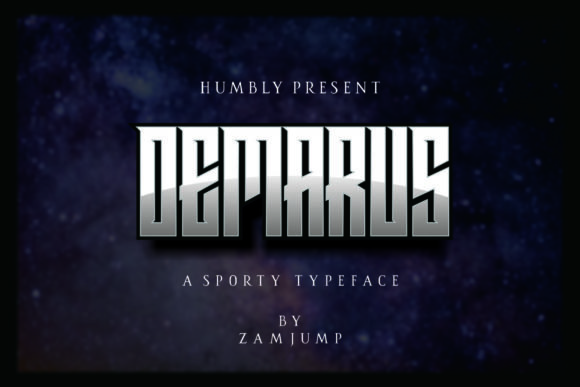
Unleash Your Creativity with Demarus Font
Have you ever been stuck in the middle of a project, staring at a blank page, trying to find the perfect font to bring your idea to life? That’s exactly what happened to us when we stumbled upon Demarus Font – an exquisite display font designed specifically for e-sports related projects.
Demarus Font is more than just a font, it’s a key to unlocking your creativity. With its sleek and modern design, it’s perfect for logotype, quotes, magazine layouts, and even t-shirt designs. Whether you’re a seasoned designer or just starting out, Demarus Font is an invaluable addition to your toolkit.
- Font Family: Demarus is a sans-serif font family designed for modern and clean typography.
- Character Count: Demarus Font contains over 800 glyphs, including Latin, Cyrillic, and Greek alphabets, as well as various punctuation marks and symbols.
- Unique Characteristics: Demarus Font features a unique blend of geometric and organic shapes, resulting in a modern and sophisticated aesthetic.
Demarus Font Review
Overall, I think Demarus Font is a solid choice for designers looking for a modern and sleek display font. ✨ It’s perfect for titles, headings, and any other element where you want to add a touch of sophistication.
- ✨ Highly legible even at small font sizes.
- ✨ Suitable for a wide range of design projects, from digital to print.
- ✨ Well-suited for use with bold, modern color schemes.
- ✨ Available in a range of weights and styles to suit different design needs.
- ⚠️ May not be the best choice for body text or long blocks of text due to its condensed nature.
- ⚠️ Some users may find the font a bit too stylized or flashy for certain design projects.
- ⚠️ Limited language support, which may be a concern for designers working on multilingual projects.
I think Demarus Font is a great addition to any designer’s toolkit. While it may have some limitations, its unique style and versatility make it a valuable asset for designers looking to add some visual interest to their projects.
- Use Demarus Font for titles and headings to add a touch of elegance to your designs.
Demarus Font is ideal for:
- Editorial and literary designs
Are there any specific font features or kerning pairs available for Demarus?
Demarus includes advanced OpenType features such as ligatures, alternates, and swashes. Additionally, the font includes custom kerning pairs to ensure optimal spacing and readability. You can access these features using your design application’s font menu or by using a font management tool.